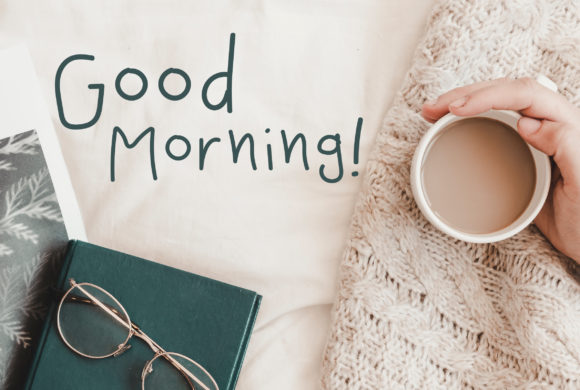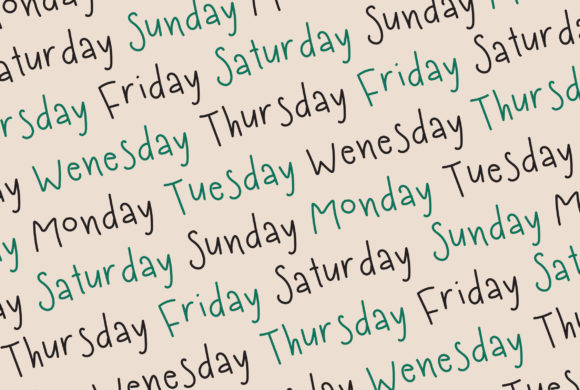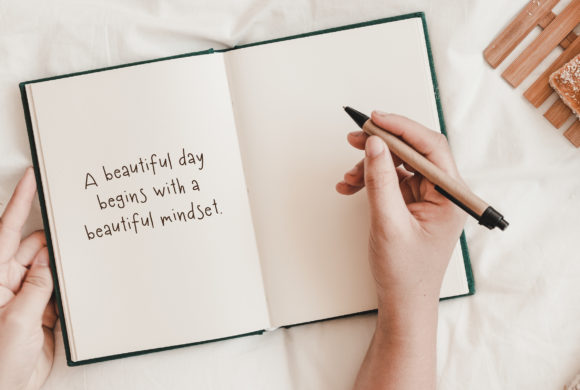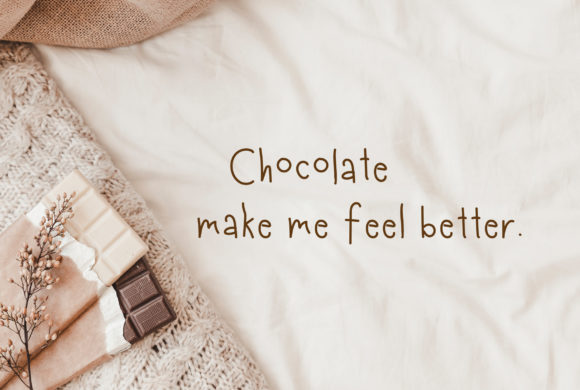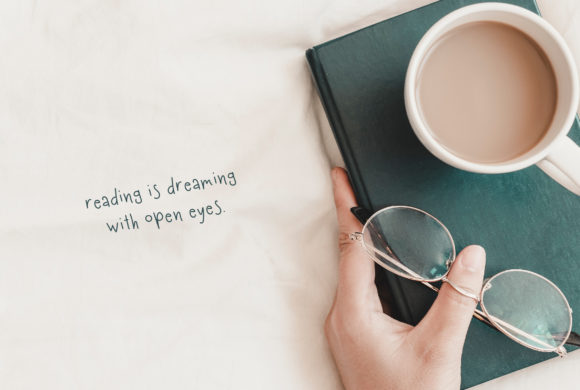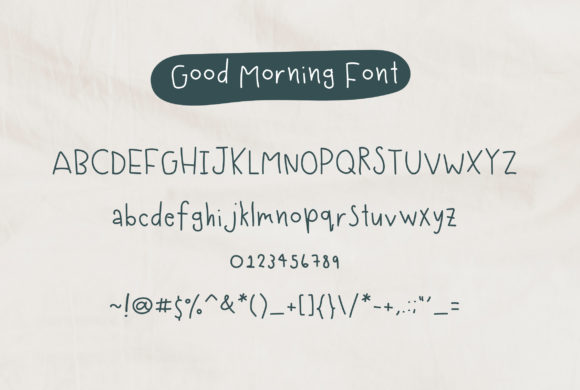
About Good Morning Font
Good Morning is a sweet and friendly handwritten font. Its natural and unique style makes it incredibly fitting to a large pool of designs. It will elevate a wide range of design projects to the highest level, be it branding, headings, wedding designs, invitations, signatures, logos, labels, and much more!